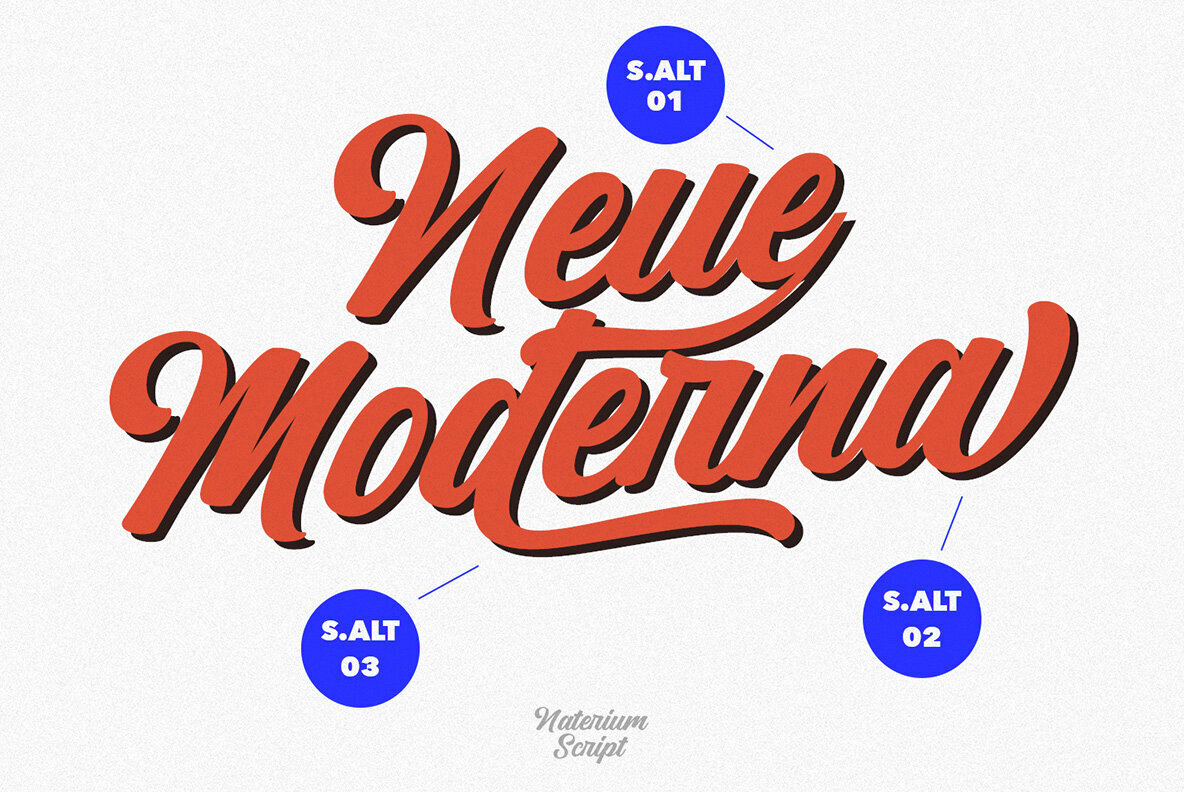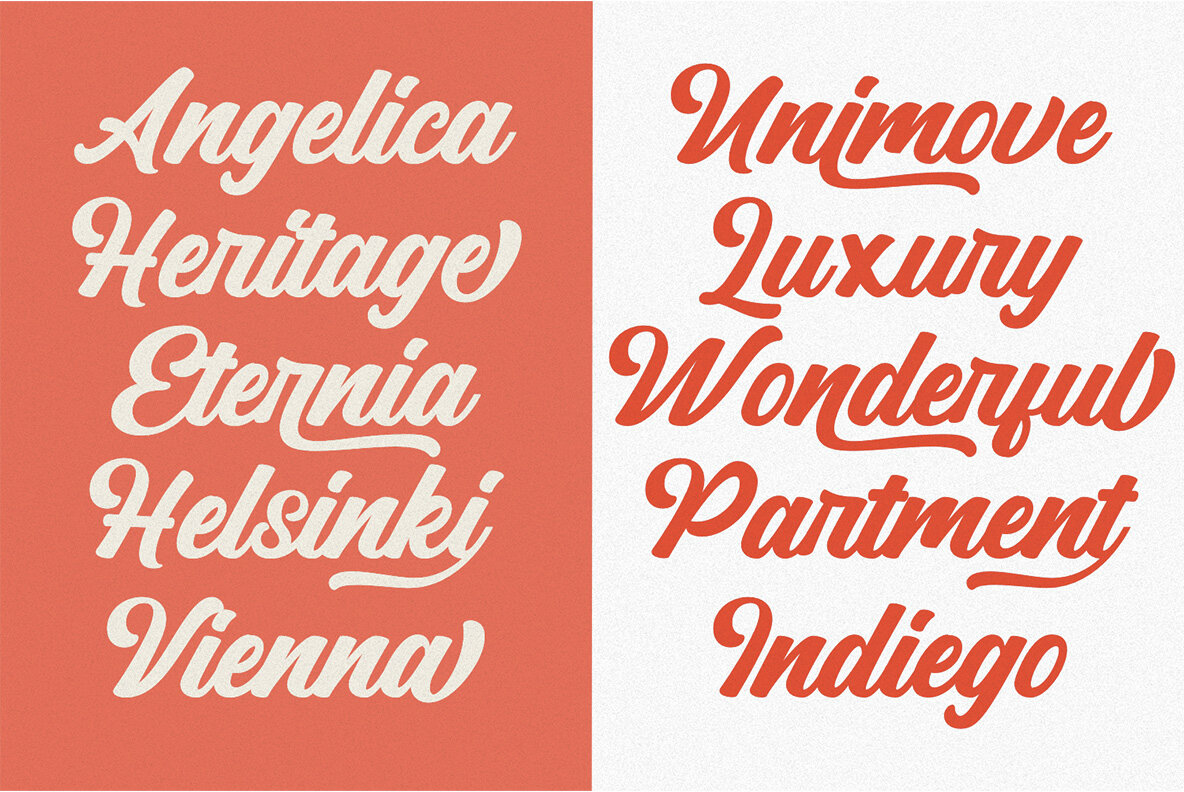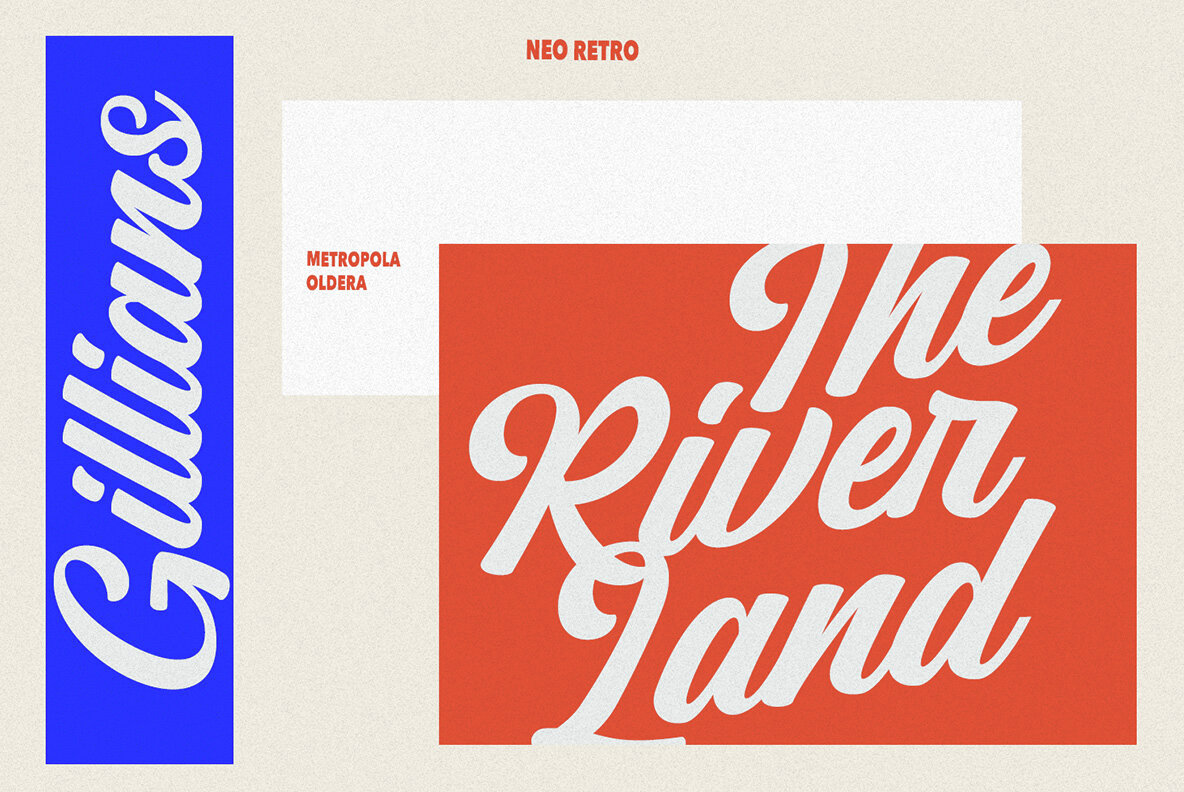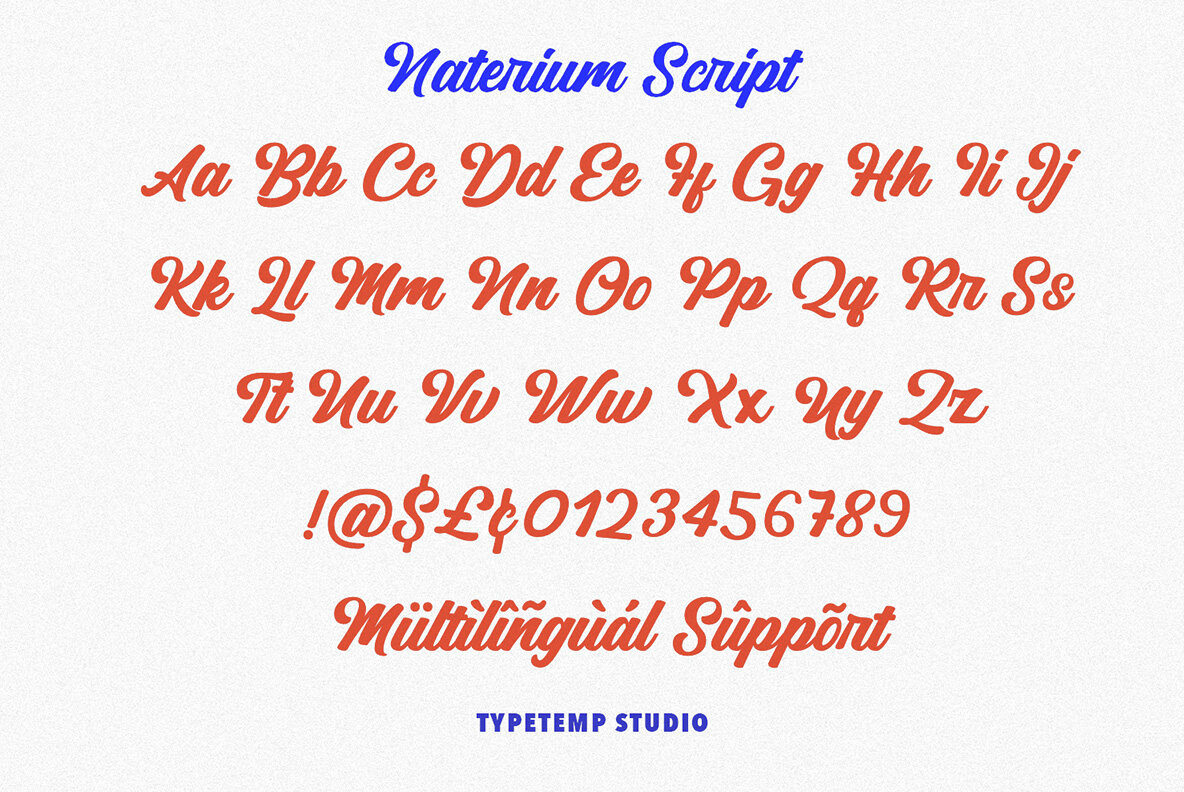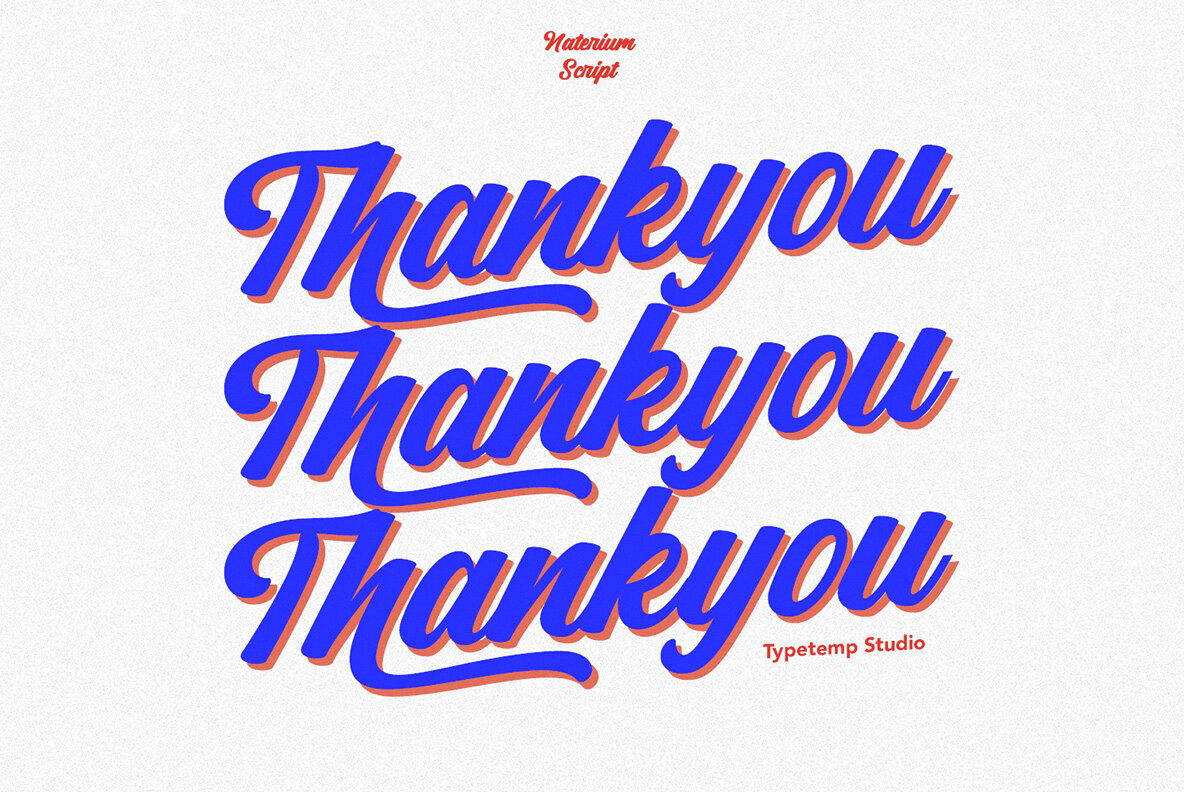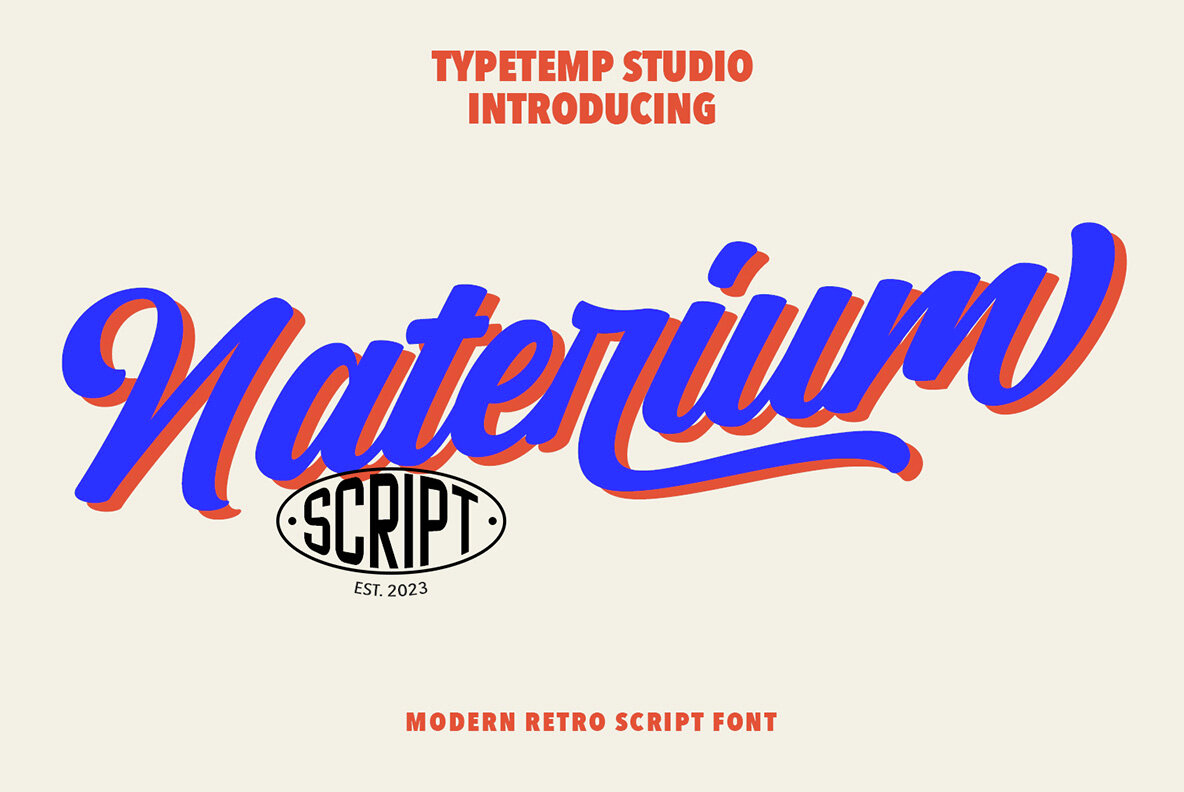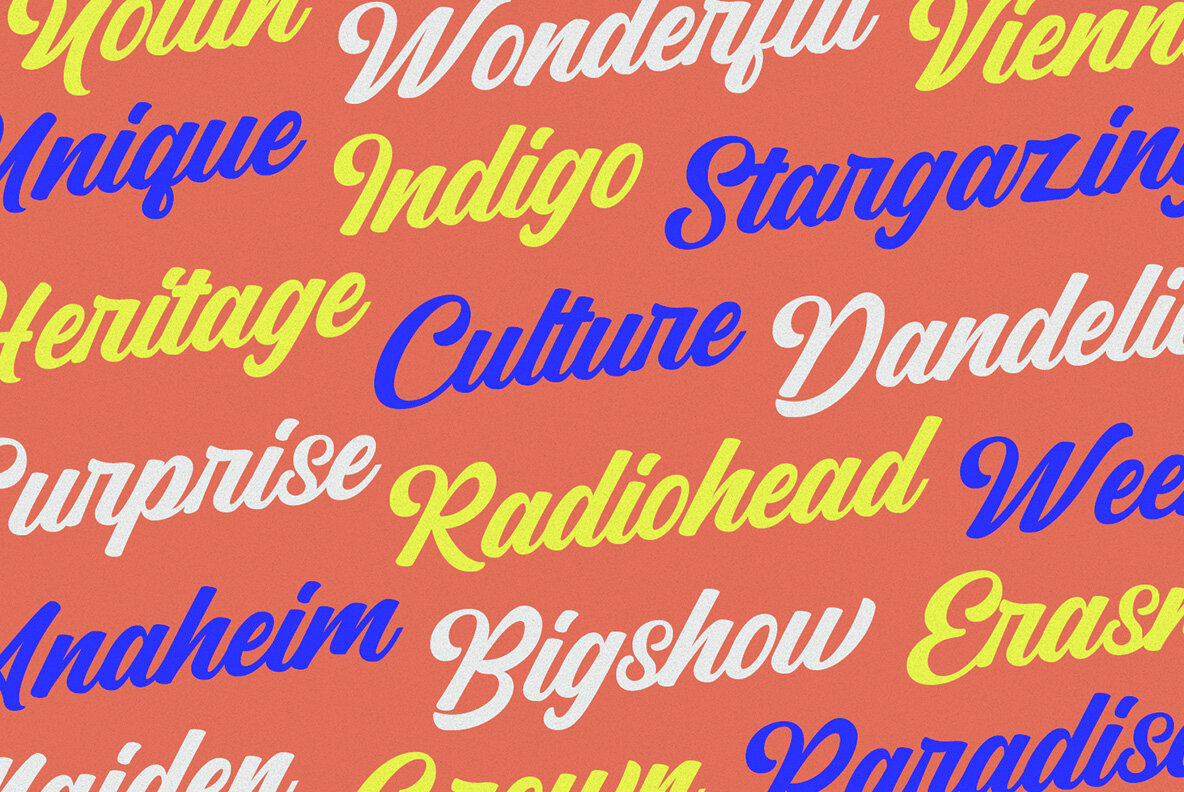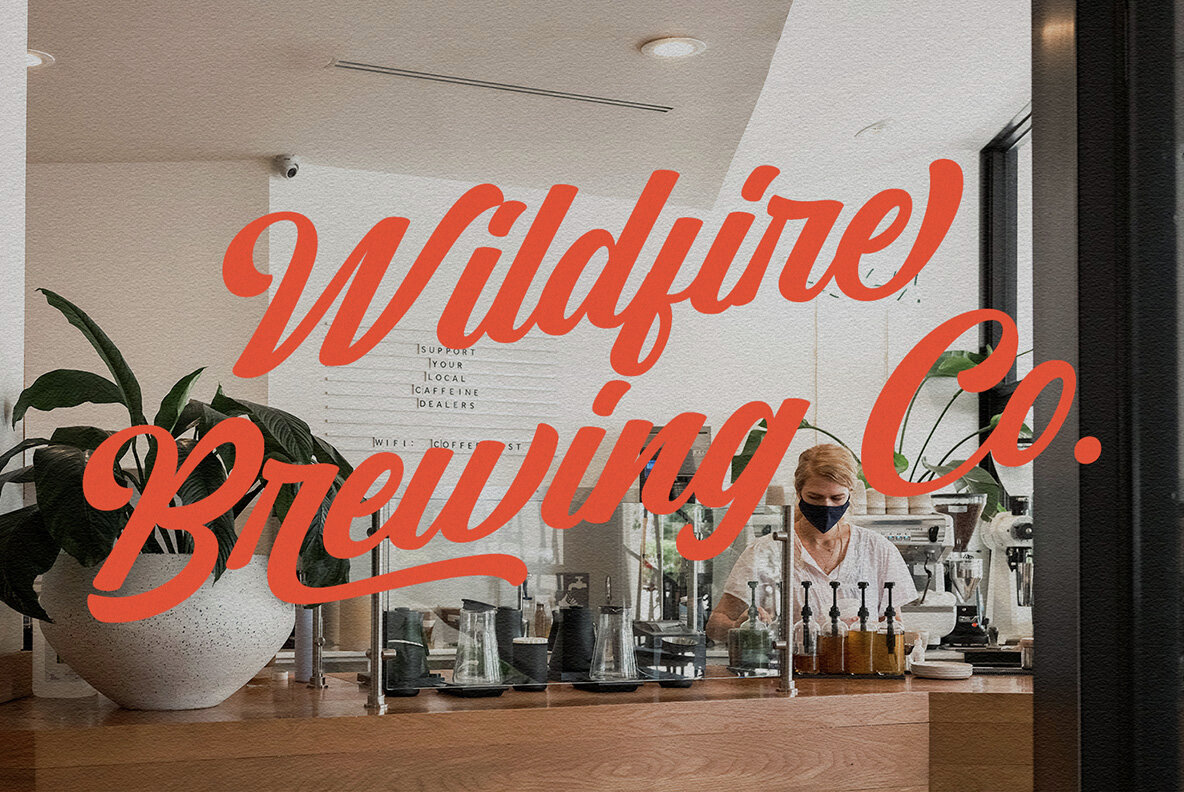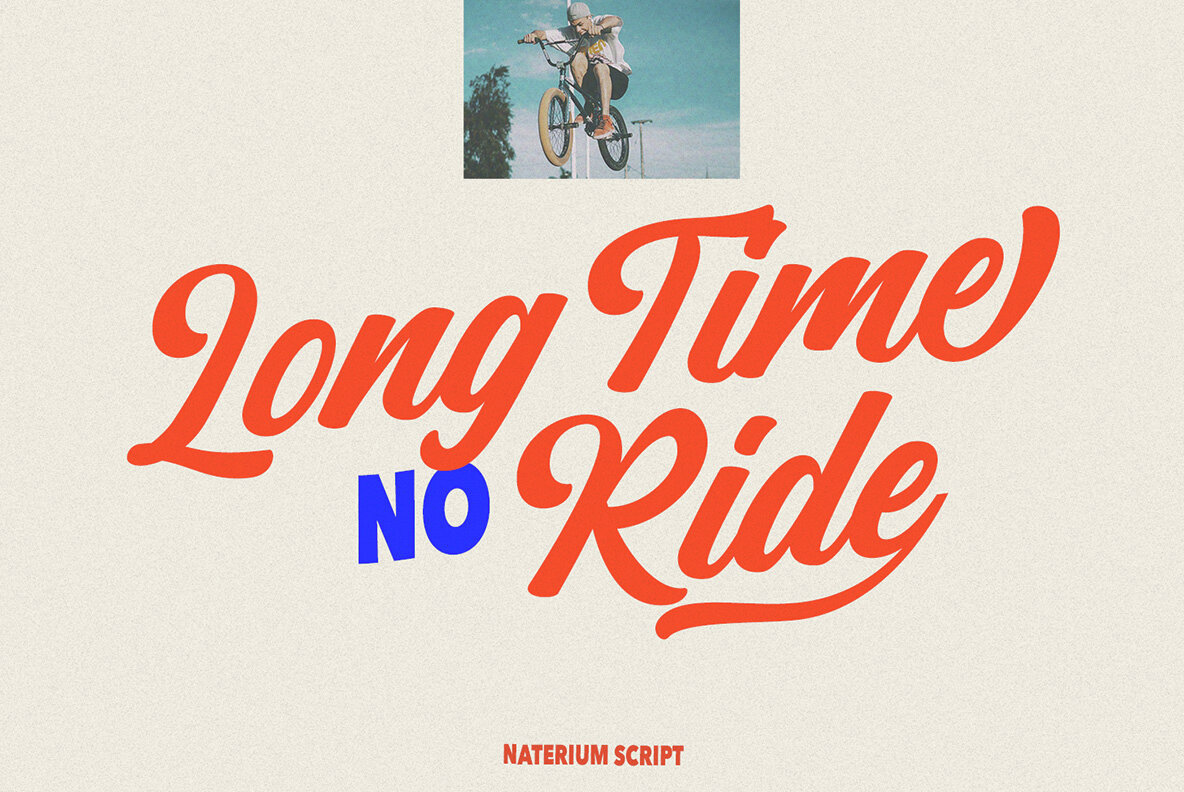
Naterium Font
Naterium Script Regular
Naterium Script Font is a stylish font It has both modern and retro look. Comes with alternatives and ligatures, helps to create stunning logos, quotes, posts, blog posts. branding projects, magazine imagery, wedding invitations, and much more. WHAT'S YOU GET ? I really hope you'll get pleasure using Naterium font and it will be perfect addition to your font collection!